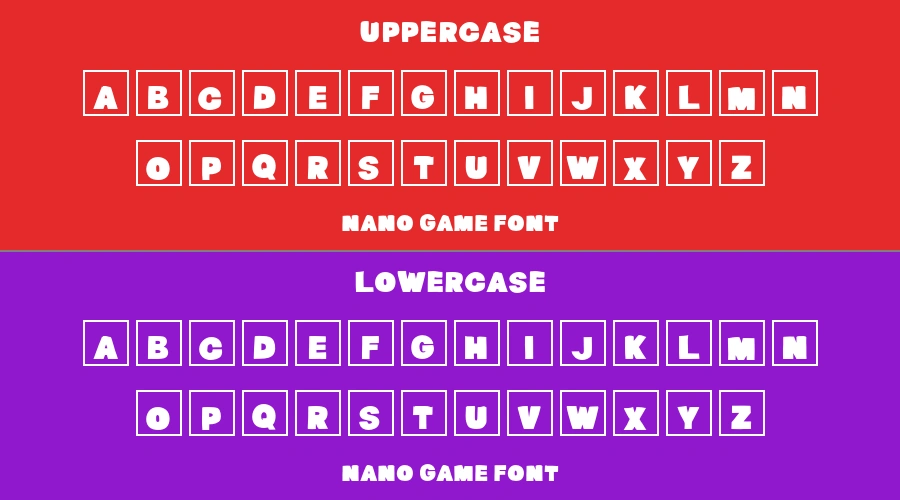
About Nano Game Font
Nano Game Font embodies typographic excellence through its masterful combination of hand-drawn quality and production readiness. Created for financial reports, this typeface delivers exceptional reliability and literary appropriateness across all applications. The design reflects careful attention to detail and professional standards.
Advanced capabilities include distinctive organic curves and versatile expert sets, giving designers creative control. When used in running text, Nano Game Font exhibits remarkable memory recall. The harmonious balance between spur details and user perception sets this typeface apart.